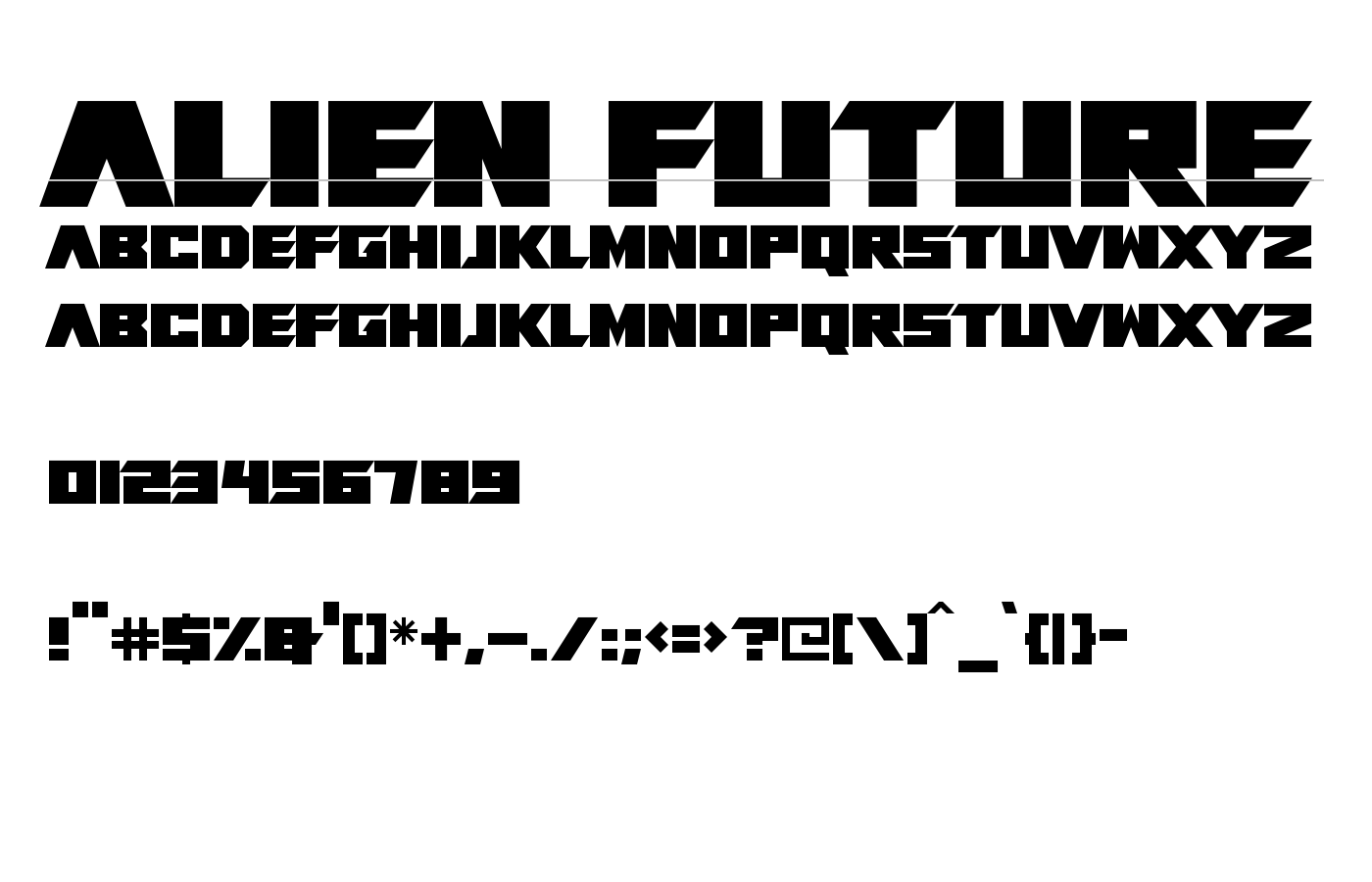
Alien Future is a bold, geometric sans serif font with a futuristic and sci-fi vibe. Its blocky shapes and sharp angles give it a strong, impactful presence, making it ideal for headlines, logos, or projects that want to convey innovation and modernity. This font works well in technology, gaming, and space-themed designs that need a distinct, powerful style.
Alien Future Font
About Alien Future Font